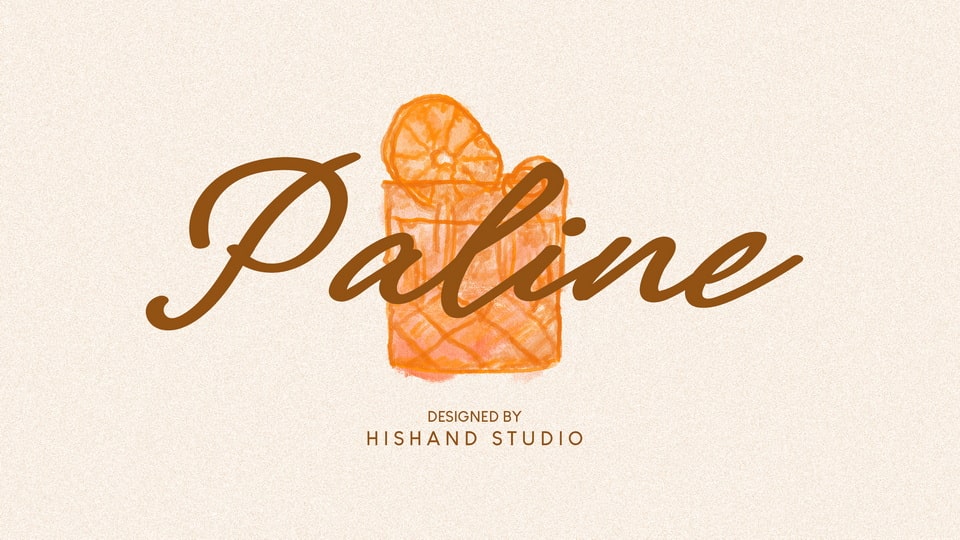
Download Paline font, a graceful script, designed to capture the beauty of natural handwriting with a refined touch, smooth, flowing strokes and balanced letterforms.